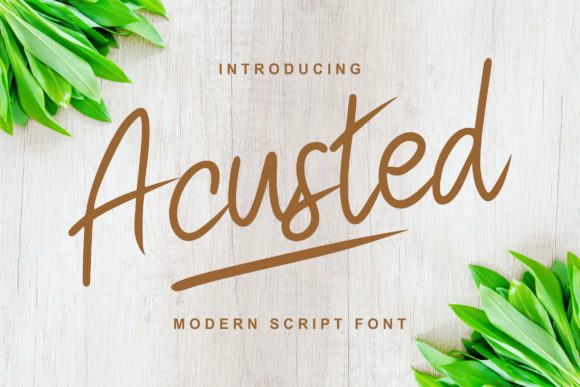
Journey into the realm of captivating designs with Acusted Font, a script font family that exudes elegance and charm. This exquisite font, meticulously crafted by Vunira, draws inspiration from the timeless beauty of classic typography, breathing new life into your creative endeavors.
With Acusted Font, you possess the power to transform ordinary designs into extraordinary masterpieces. Its graceful curves and flowing lines lend an air of sophistication to any project, adding a personal touch that speaks volumes. Unleash your creativity and let Acusted Font guide you toward design excellence.
Step into a world where imagination flourishes and ideas take flight. Acusted Font is your gateway to a realm of endless possibilities, where your designs come alive with beauty and distinction. As you weave your words into captivating compositions, Acusted Font will elevate your creations to new heights of artistry.
Picture the perfect door sign, one that beckons visitors with warmth and individuality. Acusted Font is your secret weapon, transforming ordinary signage into works of art. Its bold strokes and eye-catching details demand attention, ensuring your message is delivered with impact.
Acusted Font is more than just a font; it's an experience. Its versatility knows no bounds, adapting seamlessly to a symphony of design projects. Whether you're crafting personalized invitations, designing enchanting logos, or creating beautiful social media graphics, Acusted Font rises to the occasion with grace and poise.
Soar above the mundane and embrace the enchanting allure of Acusted Font. Its captivating presence will ignite your imagination and leave an indelible mark on the hearts of your audience. Let Acusted Font be your guiding light on the path to design greatness. Dive into the world of Acusted Font today and unlock the boundless potential of your creativity!